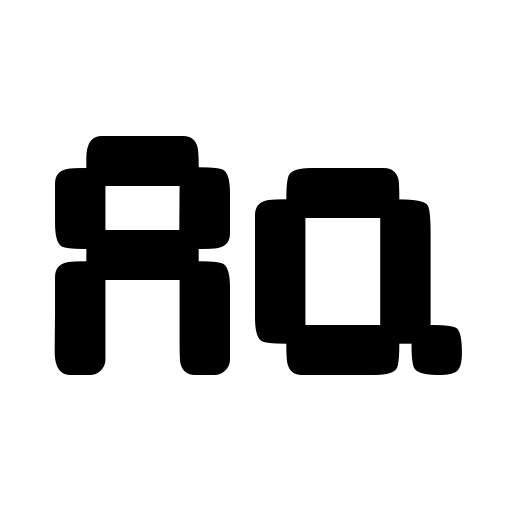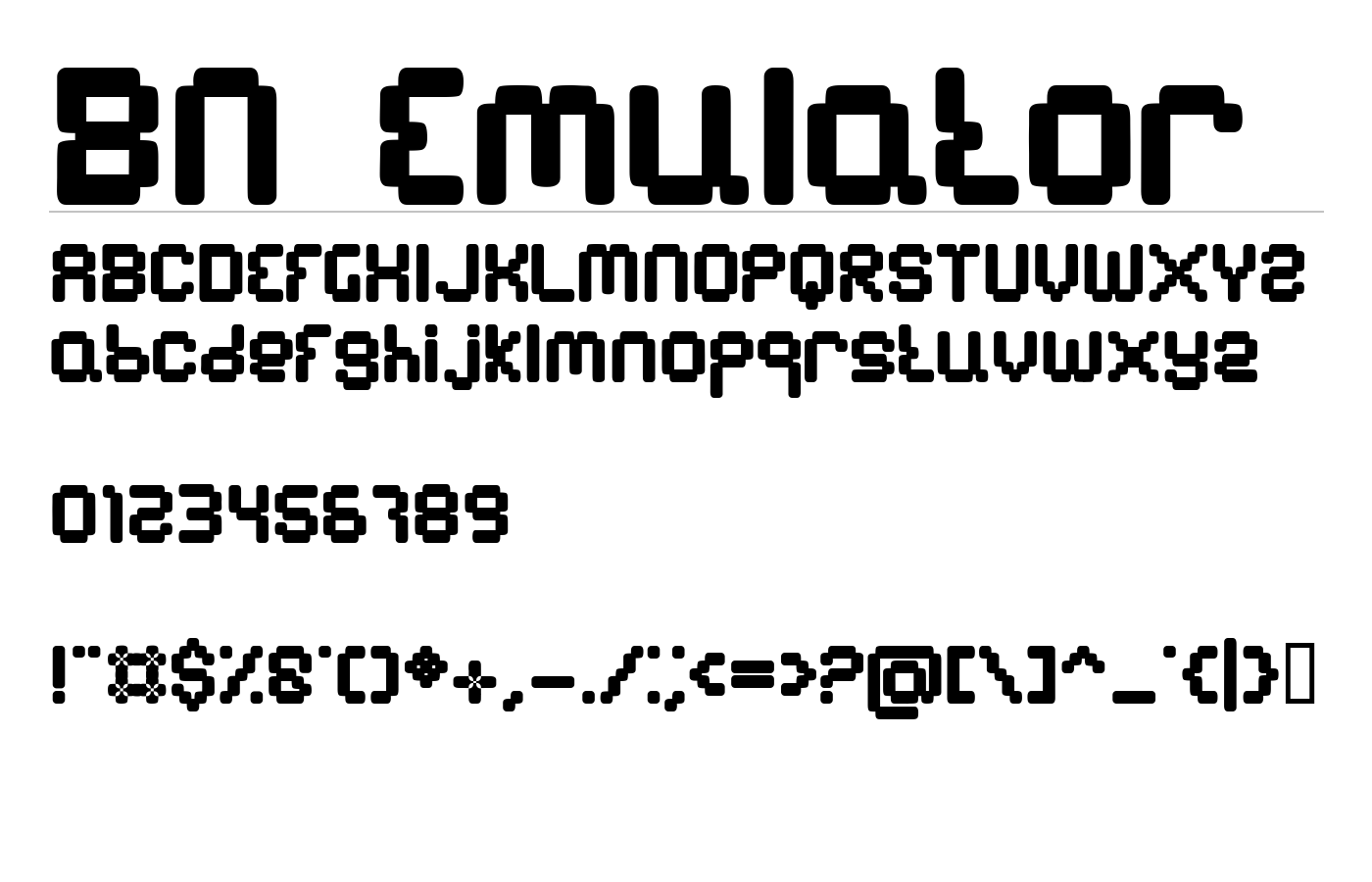
BN Emulator is a bold, geometric sans serif font with a pixelated, digital aesthetic that evokes vintage computer or arcade game interfaces. Its squared, blocky letterforms feature even strokes and tight spacing, making it ideal for tech-themed designs, retro-futuristic branding, and digital displays. This font works best for headlines, logos, and projects seeking a nostalgic yet modern and tech-savvy vibe.
BN Emulator Font
About BN Emulator Font